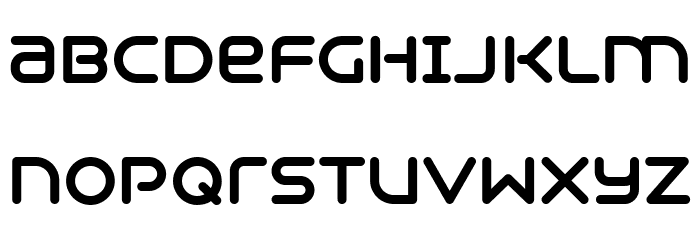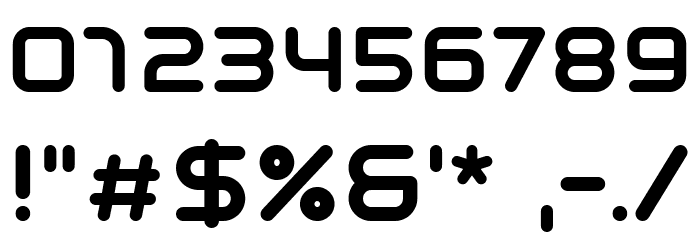
Syntha Nova Regular Font
This font features a futuristic and geometric design, characterized by rounded edges and a uniform stroke width. The letters are crafted with a modern aesthetic, emphasizing simplicity and readability. The uppercase and lowercase characters maintain a consistent style, with a slight variation in size and shape to differentiate them. The numerals and special characters follow the same design principles, ensuring a cohesive look across all elements. This font is ideal for projects that require a sleek and contemporary appearance, offering versatility in various design contexts.
A futuristic, geometric font with rounded edges and uniform strokes.
- Proposed Projects: Ideal for tech branding, modern UI design, futuristic posters, and digital interfaces.
- Use Case: Headlines, Logos, Digital interfaces